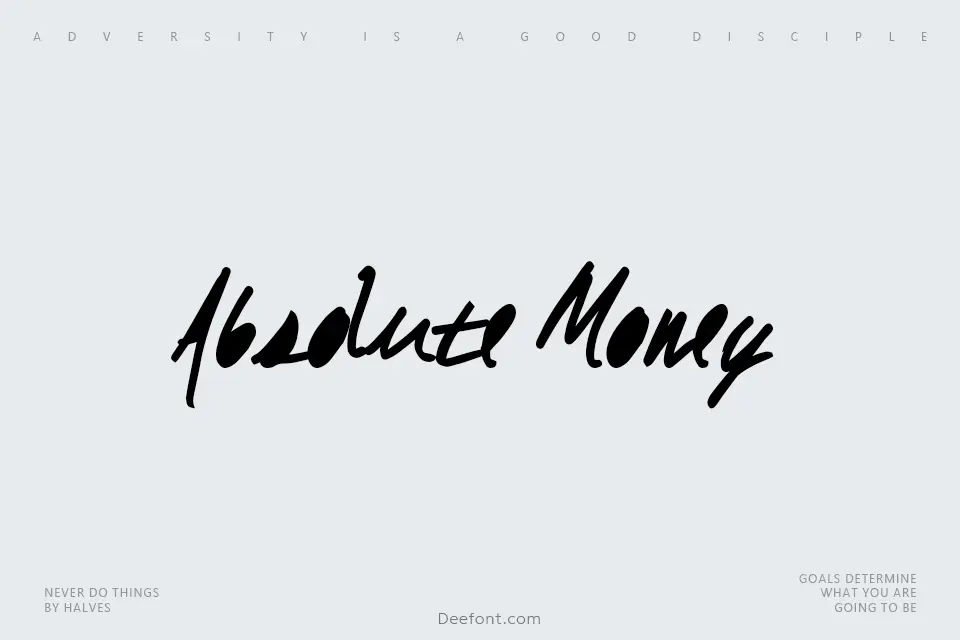
Absolute Money Font
Absolute Money is a casual handwritten typeface with loose, expressive brush strokes capturing genuine penmanship. This versatile script font excels in posters, titles, greeting cards, and branding. With informal character and strong readability, it brings personal warmth and artistic appeal to designs needing human-touched typography for digital and print media.